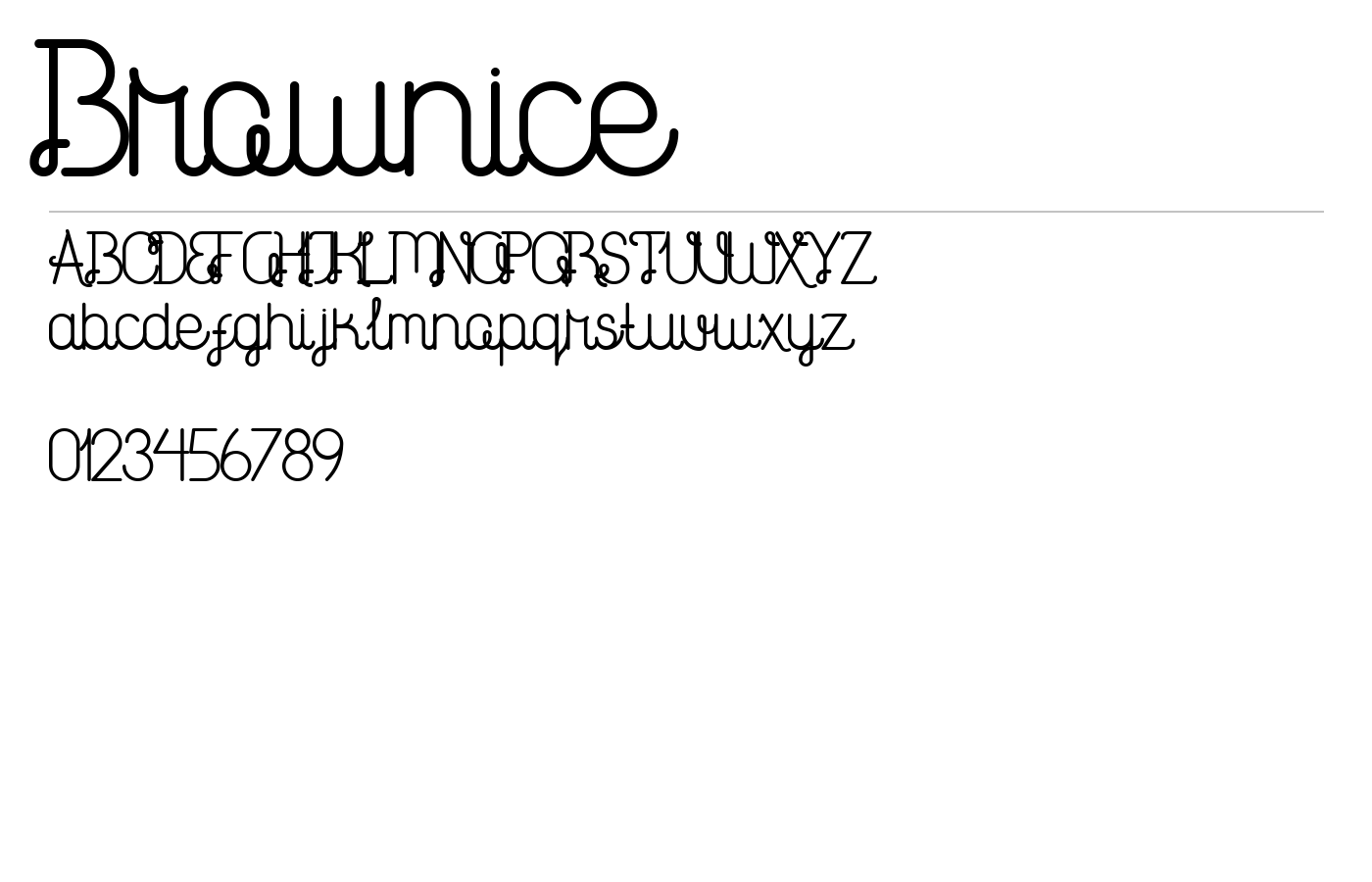
Brownice Font is a delicate, hand-drawn script with a whimsical and artistic touch, featuring thin, consistent line weights and playful loops that create a light and airy feel. Its narrow width and unique letterforms give it a charming, vintage vibe, ideal for creative branding, invitations, or display use where a personalized, friendly personality is desired. This font works best in decorative headlines and logos where its distinct, stylish flair can stand out.
Brownice Font
About Brownice Font
| Font family | Brownice Font |
| Designer | Iqrologo |